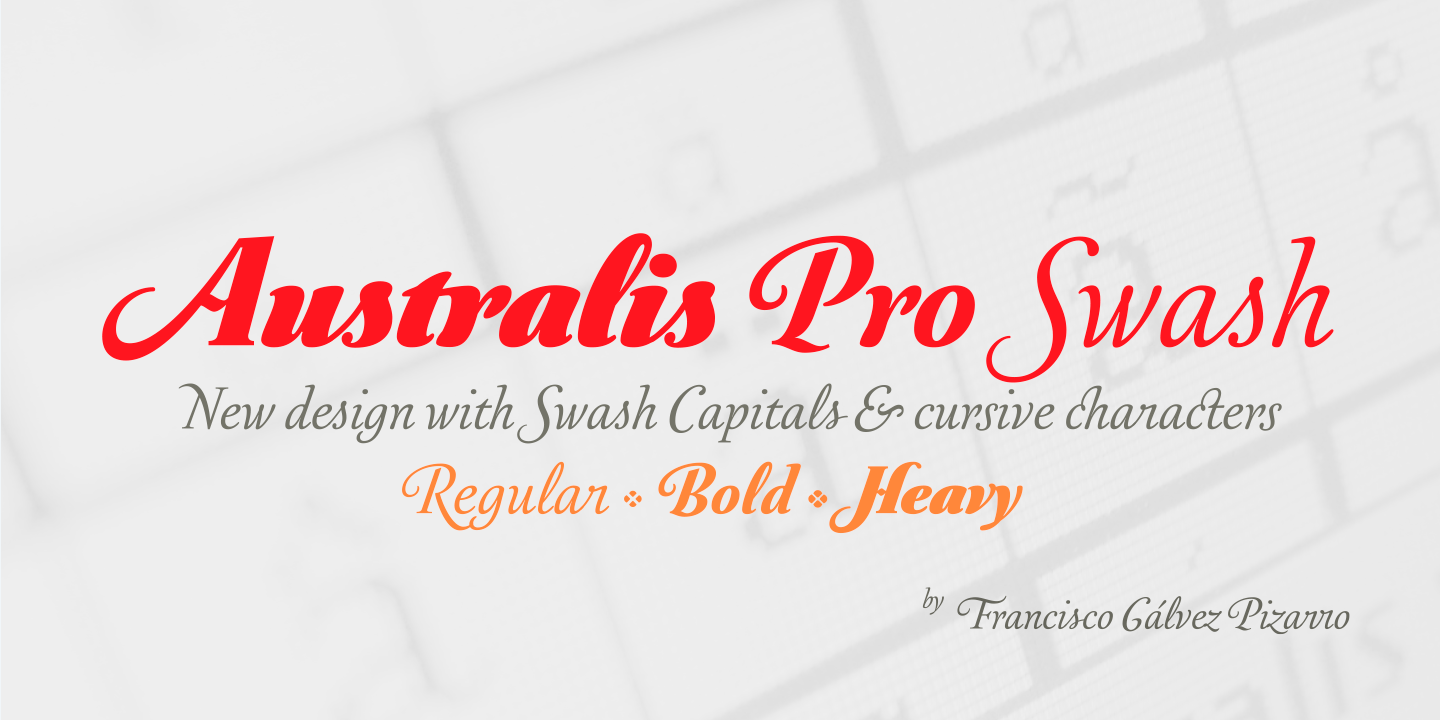
The Australis Pro Swash Font is an exquisite choice for projects that demand a blend of elegant sophistication, artistic flair, and unique personalization. It’s perfectly suited for luxury branding, high-end invitations (weddings, galas), certificate design, fashion editorials, packaging for premium products, and any design that benefits from a distinctive, graceful, and highly decorative touch. Its flowing swashes and refined letterforms make it ideal for conveying a sense of exclusivity, craftsmanship, and bespoke beauty.
What makes Australis Pro Swash Font so exciting is its inherent ability to transform ordinary text into a work of art. The beautifully designed swashes and alternate characters offer an unparalleled level of customization, allowing designers to create truly unique logotypes, headlines, and typographic compositions. This font isn't just about conveying information; it's about making a visual statement that speaks of elegance, charm, and bespoke quality. It adds a touch of hand-drawn luxury and a sense of effortless grace, making your designs feel both personal and polished. Its versatility in creating unique ligatures and flourishes is truly captivating.
The Australis Pro Swash Font family is typically rich in features, designed to provide a wealth of creative options. You can expect a strong regular style, often accompanied by various alternate characters, ligatures, and an extensive collection of swash options for both initial and final letters. Some versions might also include bold or light variations to offer subtle shifts in weight while maintaining its signature ornamental appeal. The true strength of this font lies in its OpenType features, which unlock a vast array of stylistic possibilities to tailor your text to perfection.
Whether you're crafting a prestigious brand identity, designing an unforgettable event invitation, or creating a visually stunning piece of editorial art, the Australis Pro Swash Font Free Download offers an indispensable resource. Its artistic elegance and customizable flair make it a premier choice for any project that requires a typeface of exceptional beauty and distinctive character.